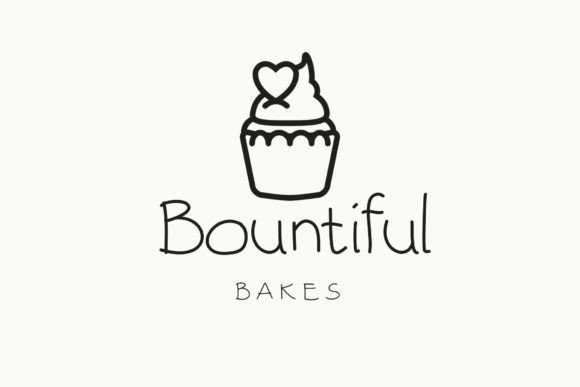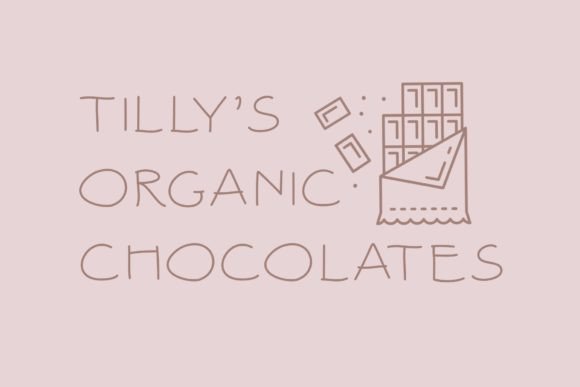
Kalyee Font
A Cute and Versatile Handwritten Script
Kaylee is an adorable handwritten font designed to bring warmth and personality to any project. With its smooth, playful strokes and friendly style, Kaylee feels casual yet polished. This font is perfect for crafters, small businesses, and designers who want to add a personal touch to their work.
Its cute character makes it great for both professional branding and fun DIY projects. Whether you’re creating labels, invitations, or social media graphics, Kaylee will make your designs stand out.
Kaylee is a highly versatile font that works beautifully across a range of design applications. It’s perfect for Cricut projects, making it easy to create custom vinyl decals, t-shirts, mugs, and more. The clean lines cut perfectly, ensuring your crafts look professional every time.
The font also shines in logos and business cards, giving your brand a friendly, approachable feel. Whether you’re designing for a bakery, boutique, or handmade shop, Kaylee’s handwritten style creates a warm, welcoming impression.
Use it for wedding invitations, greeting cards, and event signage to add a personal, heartfelt touch. It’s also great for stickers, planners, and social media graphics, helping your content feel authentic and unique.
Clear, Cute, and Easy to Read
Kaylee’s simple letterforms and even spacing ensure it stays legible at any size. Whether you’re working on large signage or small labels, the text remains clean and easy to read.
For a professional look, pair Kaylee with a classic sans-serif font. Use Kaylee for titles or headings and the sans-serif for body text. This combination keeps your designs balanced and clear while adding personality to your most important words.
To highlight Kaylee’s cute style, use light backgrounds and pastel color palettes. Soft colors like blush pink, mint green, or pale yellow work beautifully with the font’s playful strokes, making your design feel fresh and inviting.
If you’re designing for weddings or special events, consider adding delicate illustrations like flowers, hearts, or simple line art that complements Kaylee’s charm. For branding or product packaging, pair it with clean layouts to let the handwritten style shine.
Think about the mood you want to create. Kaylee is perfect for designs that should feel friendly, fun, and genuine.
Kaylee is more than just a cute handwritten font—it’s a creative tool that helps your designs feel warm and personal. Its clean style makes it easy to work with, whether you’re crafting at home or designing for your business.
Adding Kaylee to your font collection ensures you have a go-to option for projects that need a touch of sweetness. From Cricut crafts to logos, social media posts, and wedding materials, this font adapts to your ideas effortlessly.